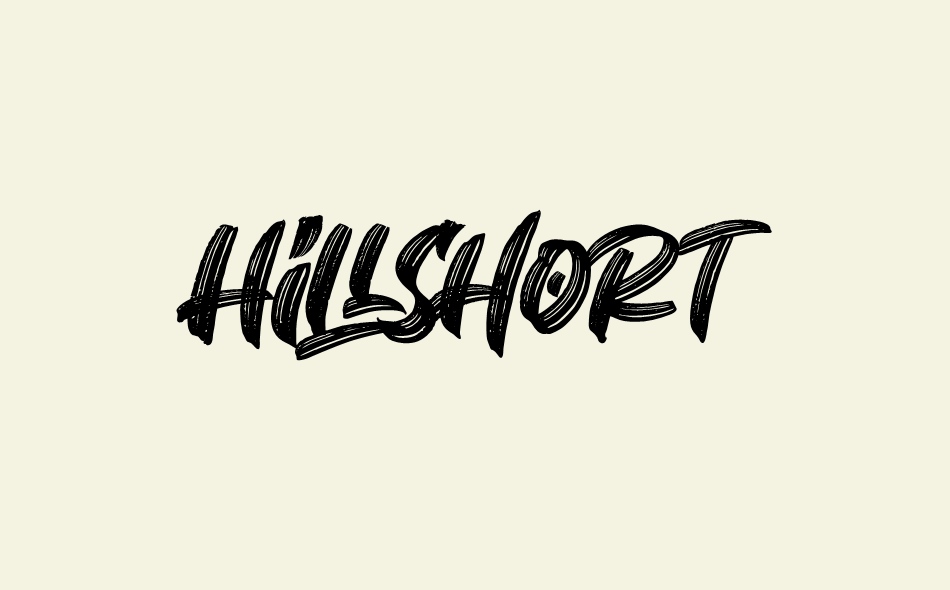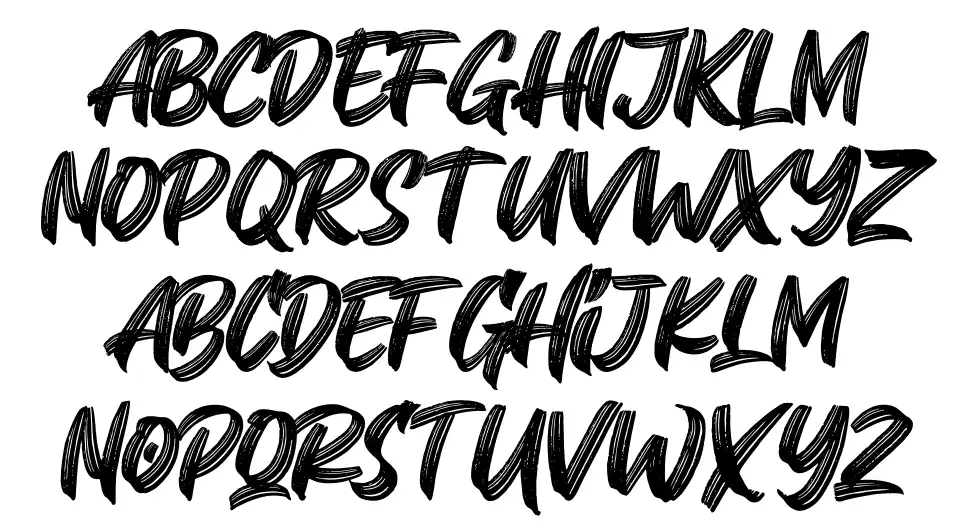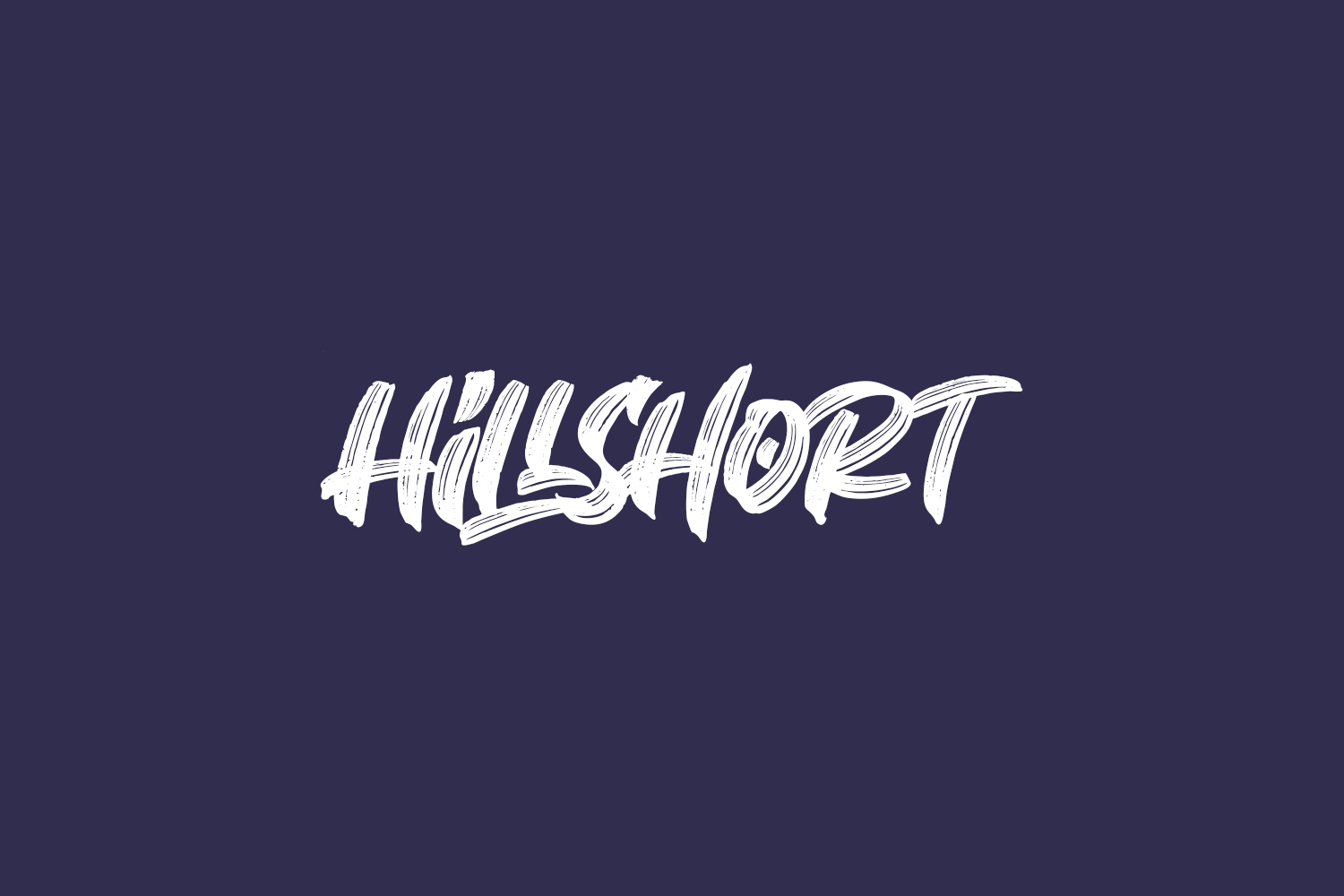
Hillshort Texture Font Free Download - Web hillshort brush font. This is an expressive handwritten brush font manufactured by ergibistudio. Web hillshort custom preview size hillshort € by riyadh rahman in script > brush 76,661 downloads (7 yesterday).
This is an expressive handwritten brush font manufactured by ergibistudio. Web hillshort custom preview size hillshort € by riyadh rahman in script > brush 76,661 downloads (7 yesterday). Web hillshort brush font.
Web hillshort brush font. This is an expressive handwritten brush font manufactured by ergibistudio. Web hillshort custom preview size hillshort € by riyadh rahman in script > brush 76,661 downloads (7 yesterday).
Web hillshort brush font. Web hillshort custom preview size hillshort € by riyadh rahman in script > brush 76,661 downloads (7 yesterday). This is an expressive handwritten brush font manufactured by ergibistudio.
Web hillshort custom preview size hillshort € by riyadh rahman in script > brush 76,661 downloads (7 yesterday). Web hillshort brush font. This is an expressive handwritten brush font manufactured by ergibistudio.
Web hillshort brush font. Web hillshort custom preview size hillshort € by riyadh rahman in script > brush 76,661 downloads (7 yesterday). This is an expressive handwritten brush font manufactured by ergibistudio.
Web hillshort brush font. This is an expressive handwritten brush font manufactured by ergibistudio. Web hillshort custom preview size hillshort € by riyadh rahman in script > brush 76,661 downloads (7 yesterday).
Web hillshort custom preview size hillshort € by riyadh rahman in script > brush 76,661 downloads (7 yesterday). Web hillshort brush font. This is an expressive handwritten brush font manufactured by ergibistudio.
This is an expressive handwritten brush font manufactured by ergibistudio. Web hillshort custom preview size hillshort € by riyadh rahman in script > brush 76,661 downloads (7 yesterday). Web hillshort brush font.
Web hillshort custom preview size hillshort € by riyadh rahman in script > brush 76,661 downloads (7 yesterday). This is an expressive handwritten brush font manufactured by ergibistudio. Web hillshort brush font.
Web Hillshort Brush Font.
This is an expressive handwritten brush font manufactured by ergibistudio. Web hillshort custom preview size hillshort € by riyadh rahman in script > brush 76,661 downloads (7 yesterday).